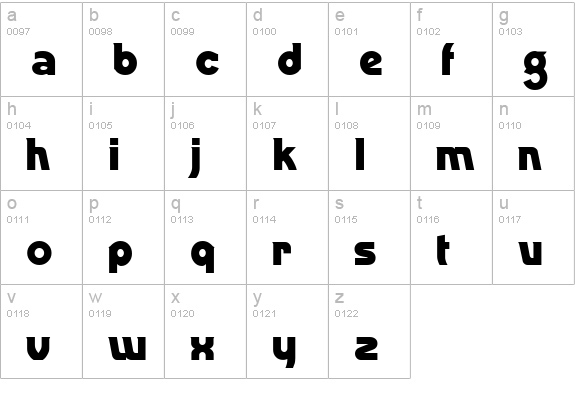
Dingaling Bold is a strong, high-contrast variant in the Dingaling typeface family \xE2\x80\x94 well suited to headlines, attention-grabbing titles, and strong calls-to-action.
Dingaling Bold is a striking and versatile font that is sure to make your designs stand out. With its bold and eye-catching appearance, Dingaling Bold is perfect for headlines, logos, posters, and more. This font features clean lines and a modern aesthetic that will give your projects a contemporary edge. The best part? Dingaling Bold is available for free download at FontsMarket.com. Whether you're a designer looking to add a unique touch to your work or a hobbyist looking to spice up your projects, Dingaling Bold is the perfect choice. Don't miss out on this fantastic font – download Dingaling Bold today and take your designs to the next level!